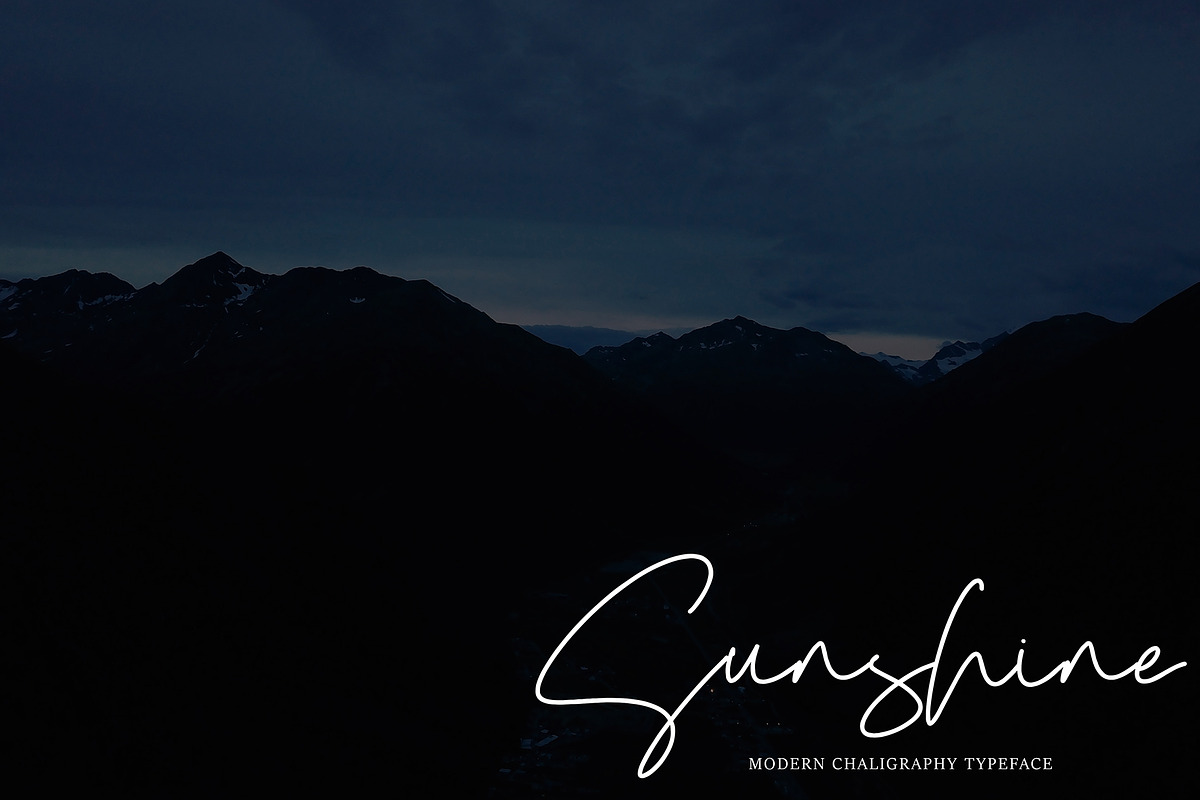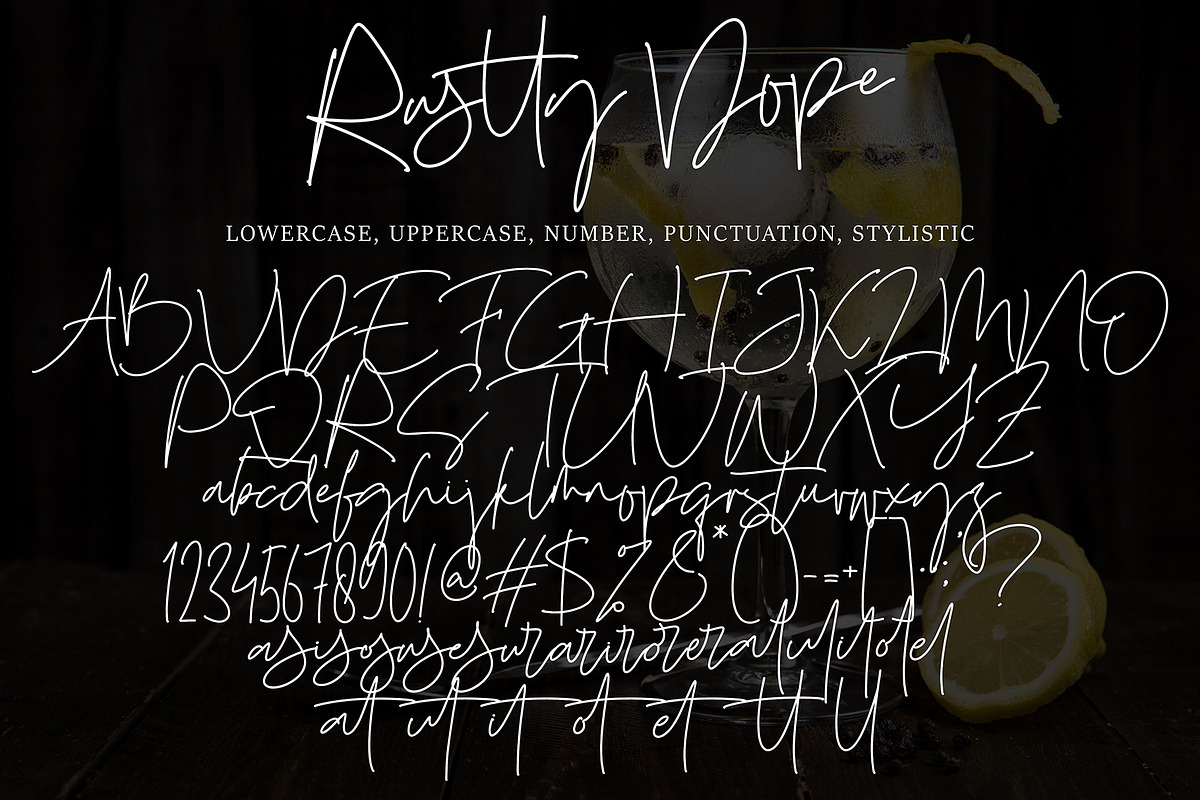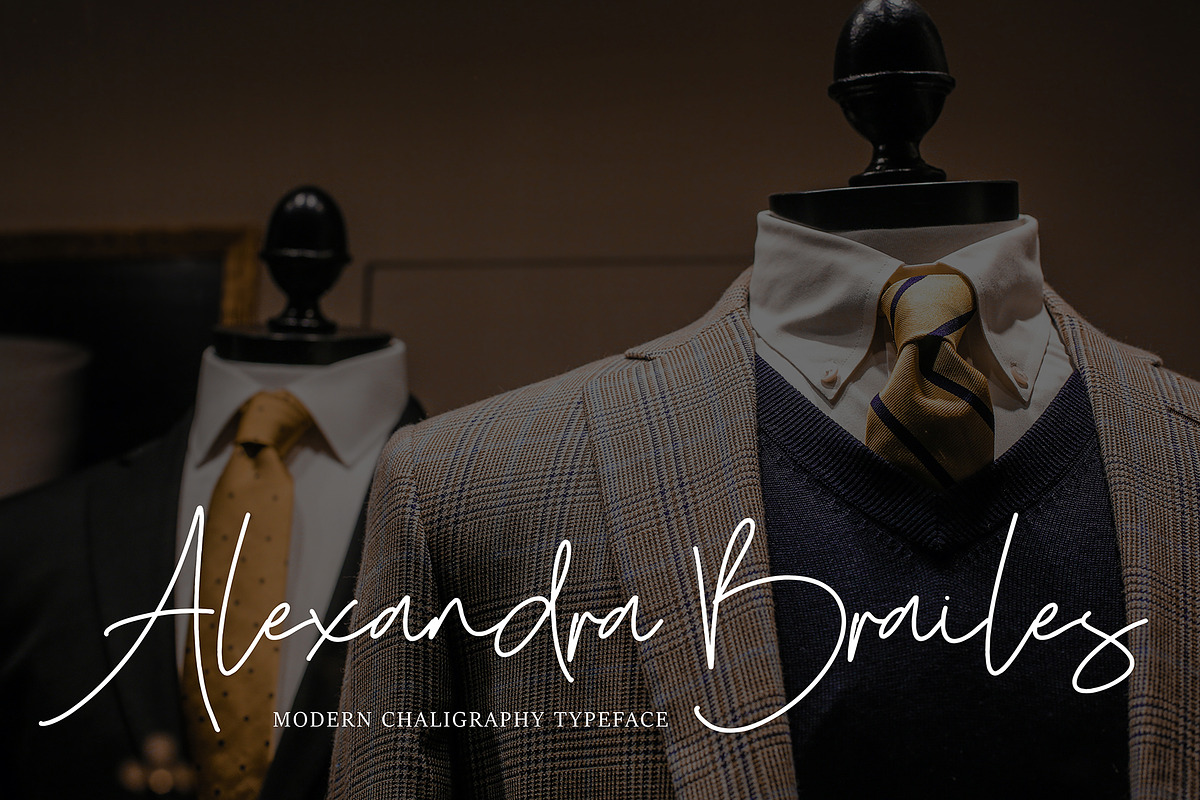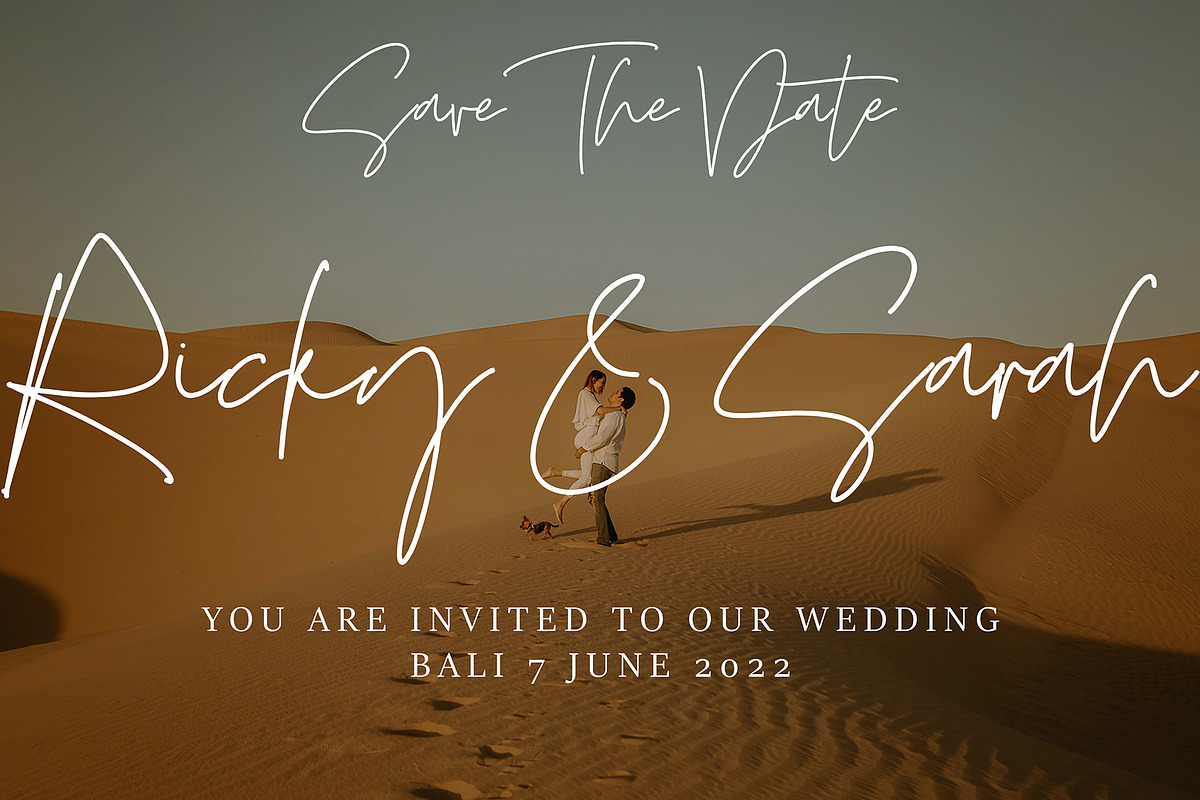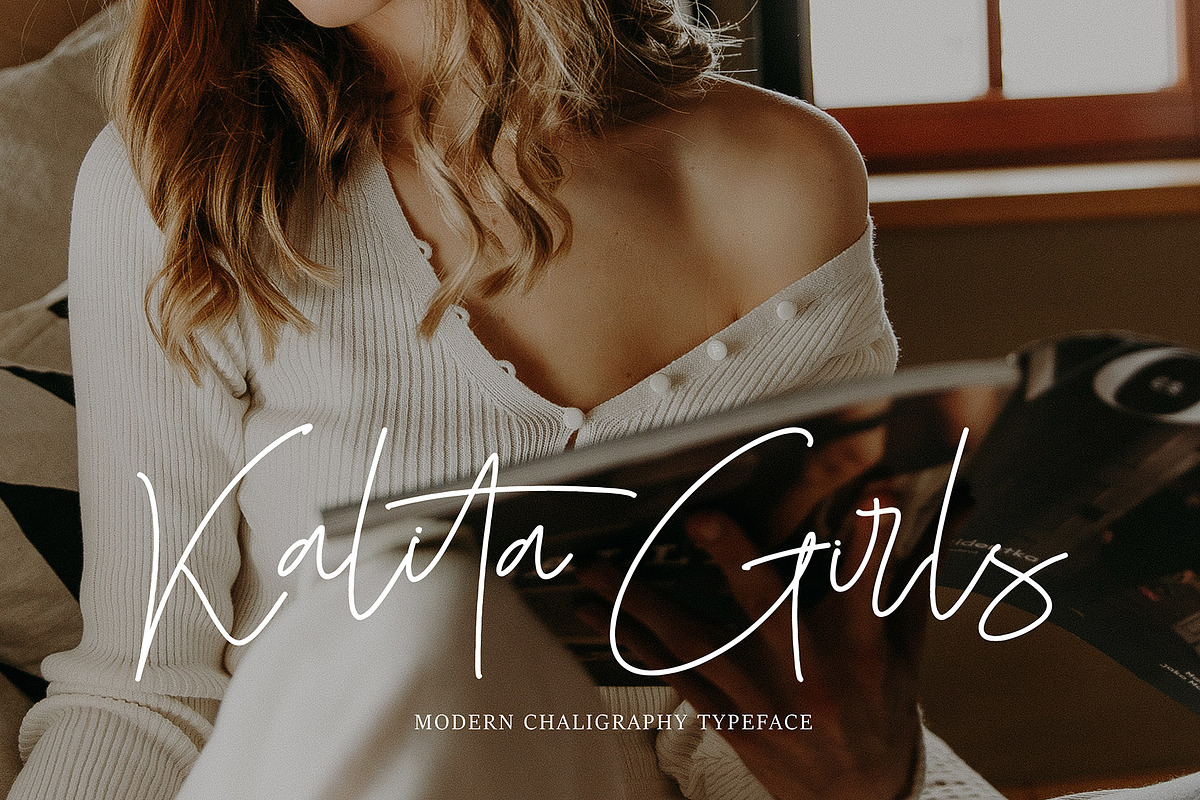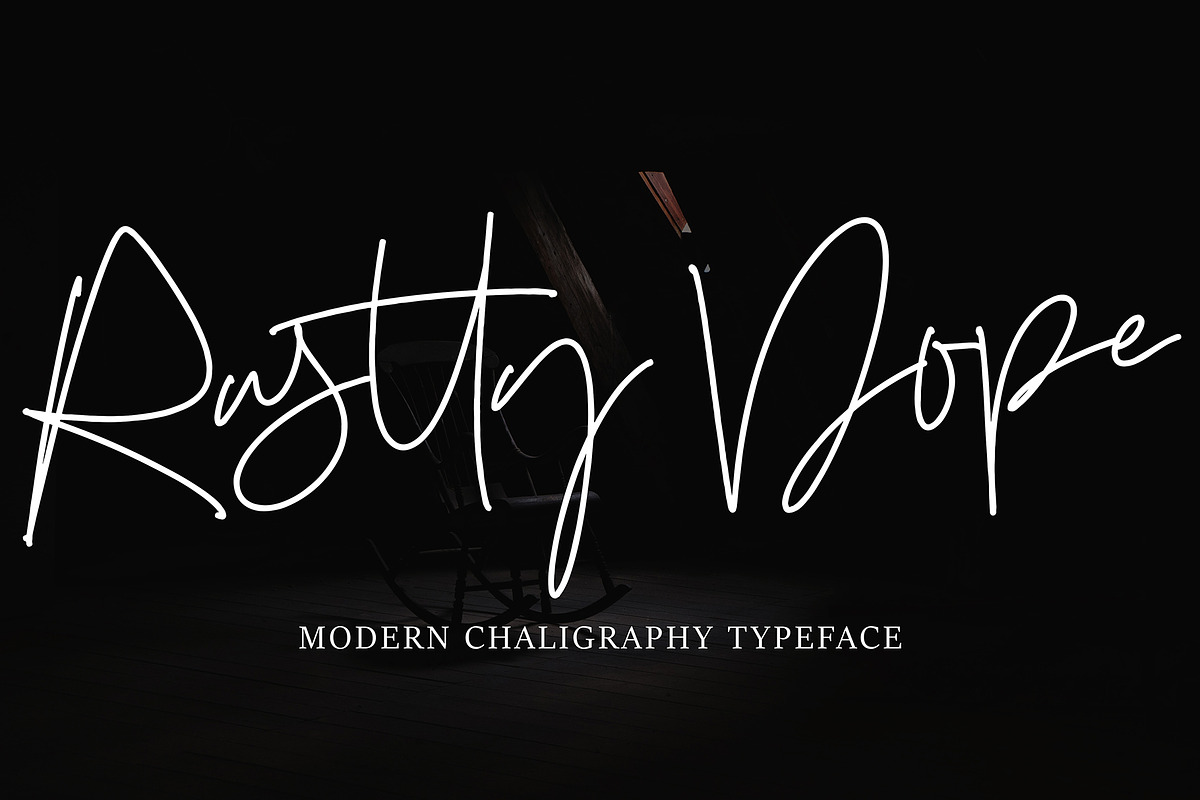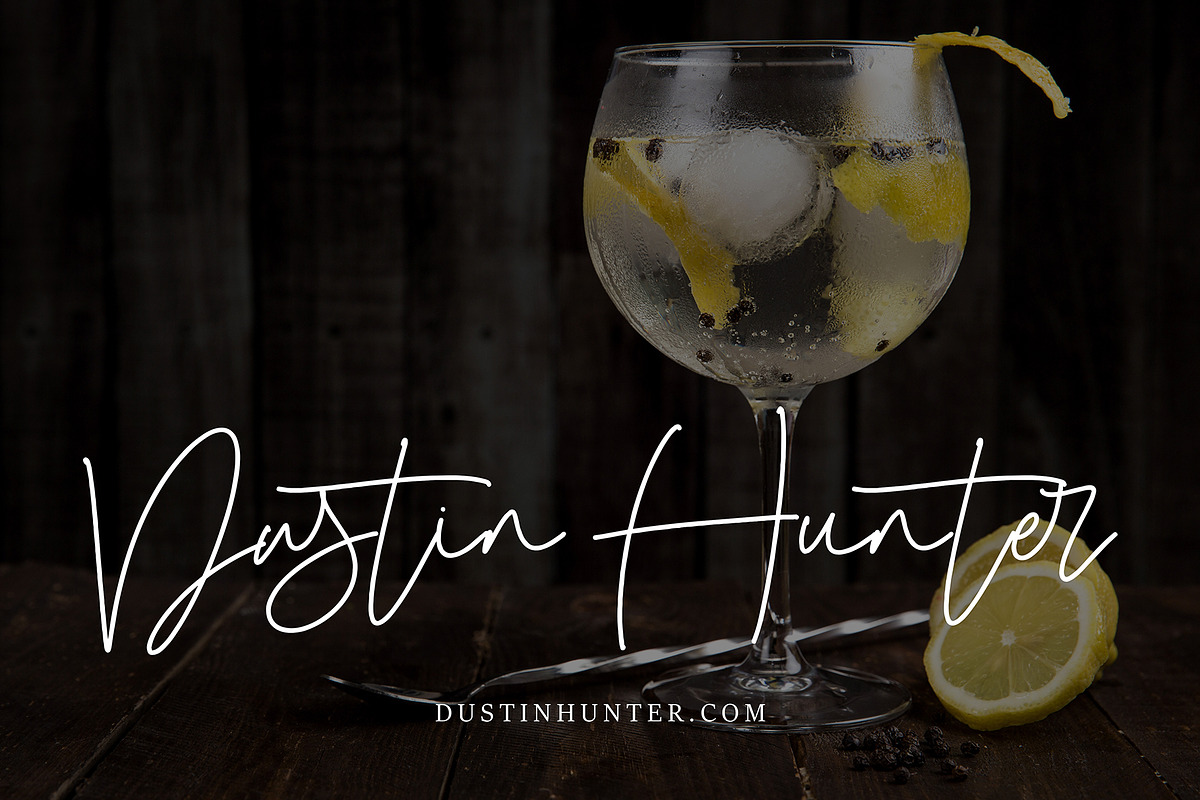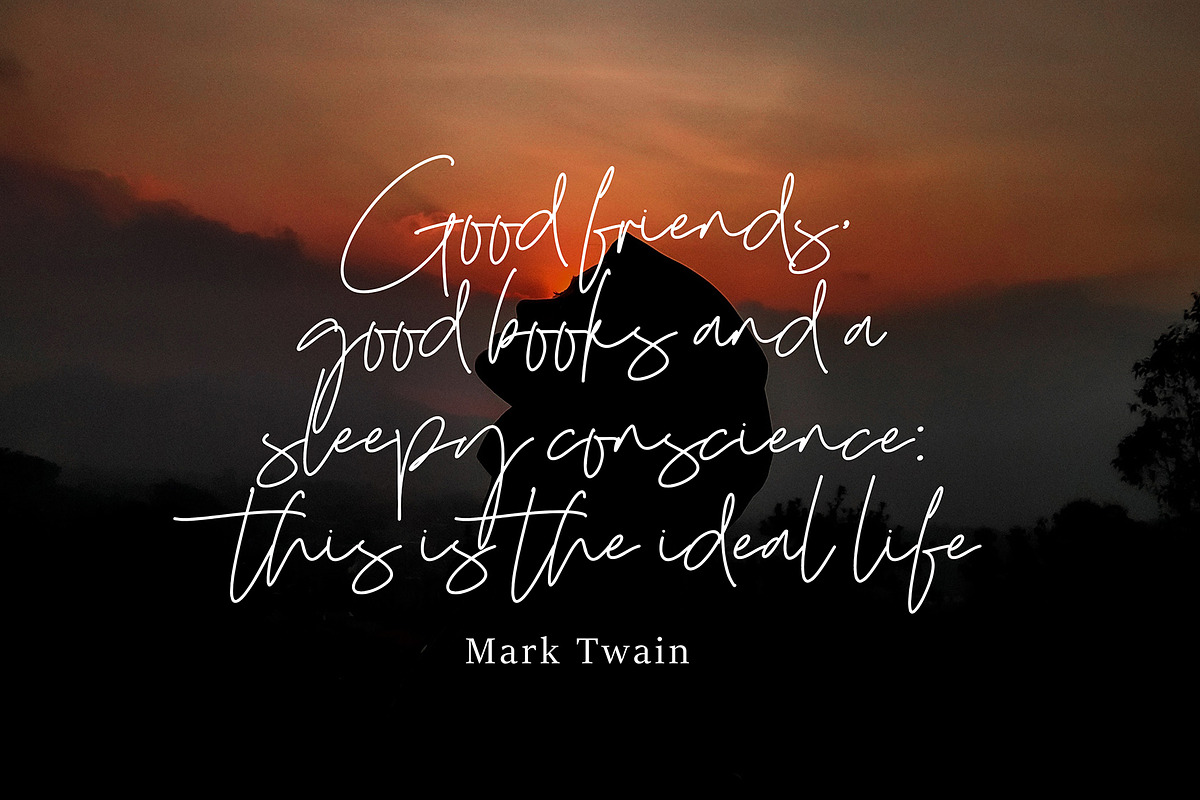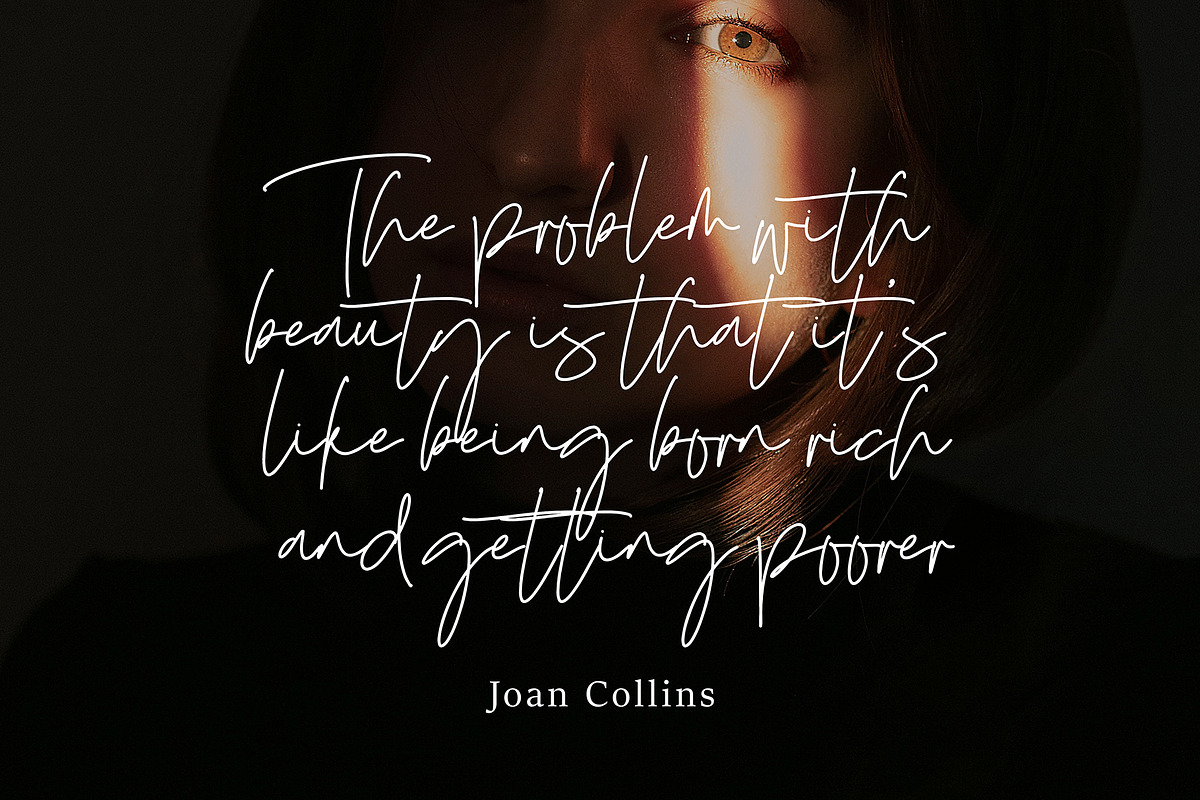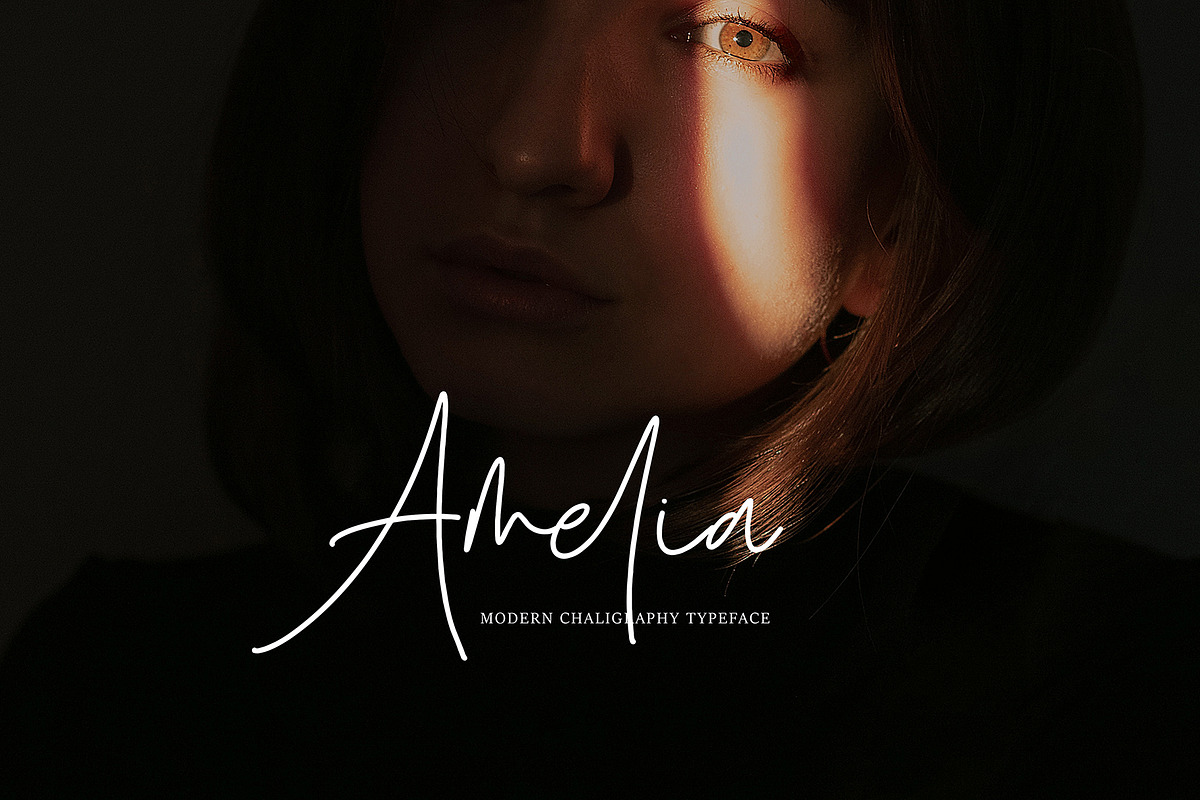
Rustty Dope
Rustty Dope font with new style, this font will perfect for many different project ex: quotes, logo, blog header, poster, banding, letter, invitation, stationery, etc...